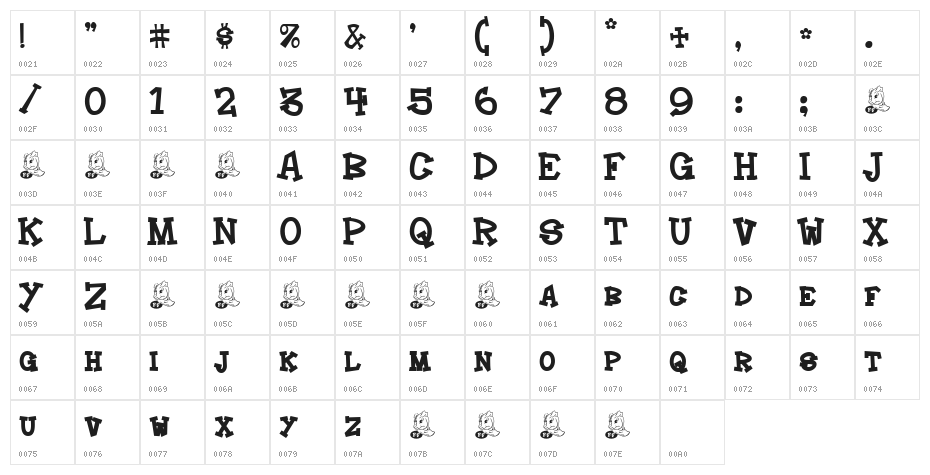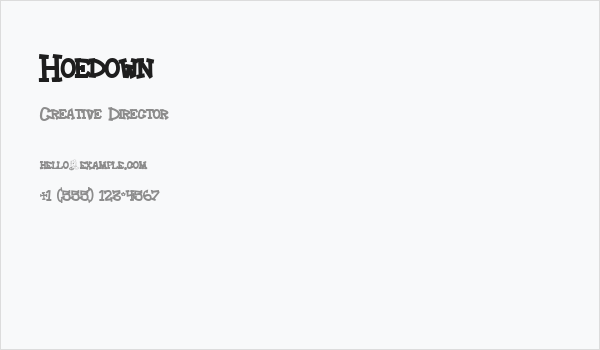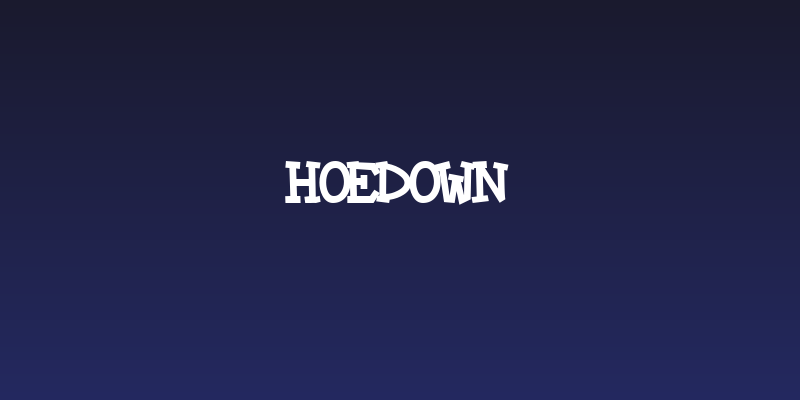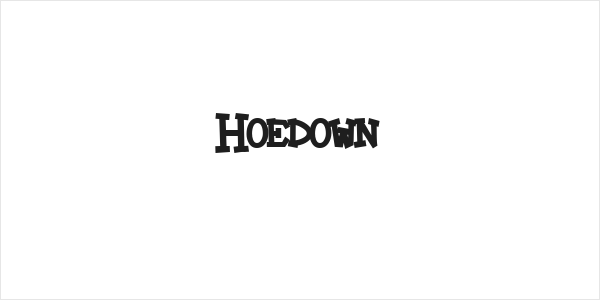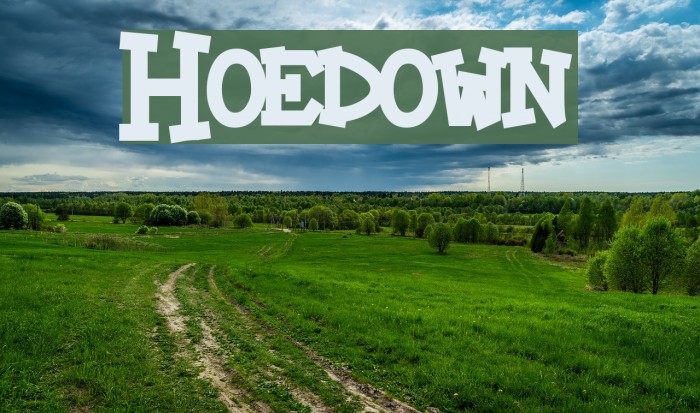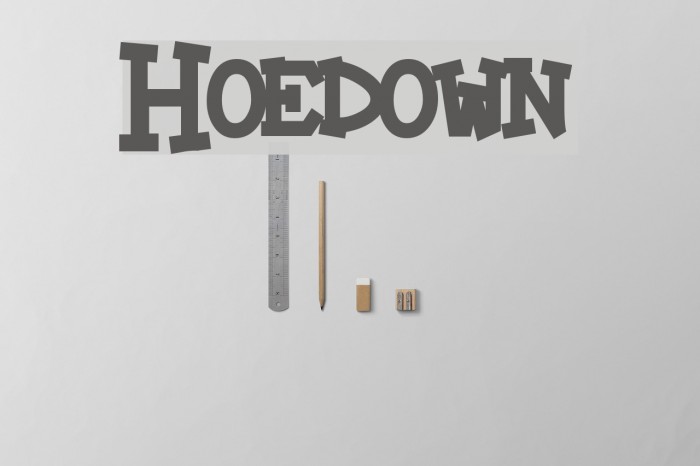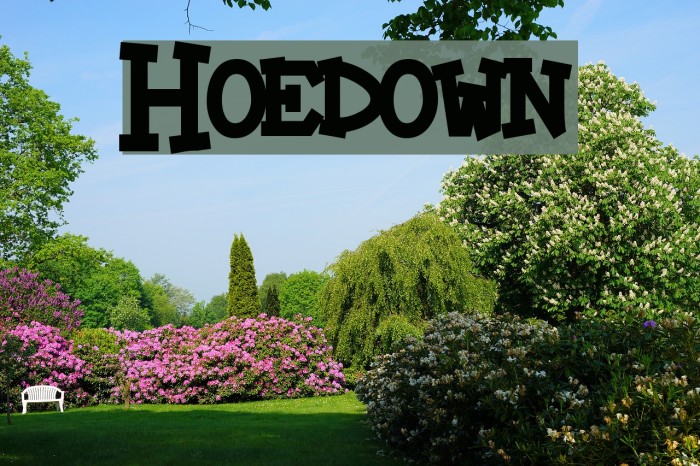
Hoedown Font
Hoedown Description
This font features a bold and playful design with exaggerated serifs and a slightly irregular baseline, giving it a whimsical and energetic appearance. The characters are thick and robust, with a strong presence that commands attention. The uppercase letters are particularly striking, with a dynamic flow that suggests movement and excitement. The numbers and special characters maintain the same lively style, making the font versatile for various creative applications. Its unique style is ideal for projects that require a fun and engaging visual impact.
| Overall Style | Playful, Energetic |
| Proposed Projects | Perfect for children's books, party invitations, posters, and playful branding. |